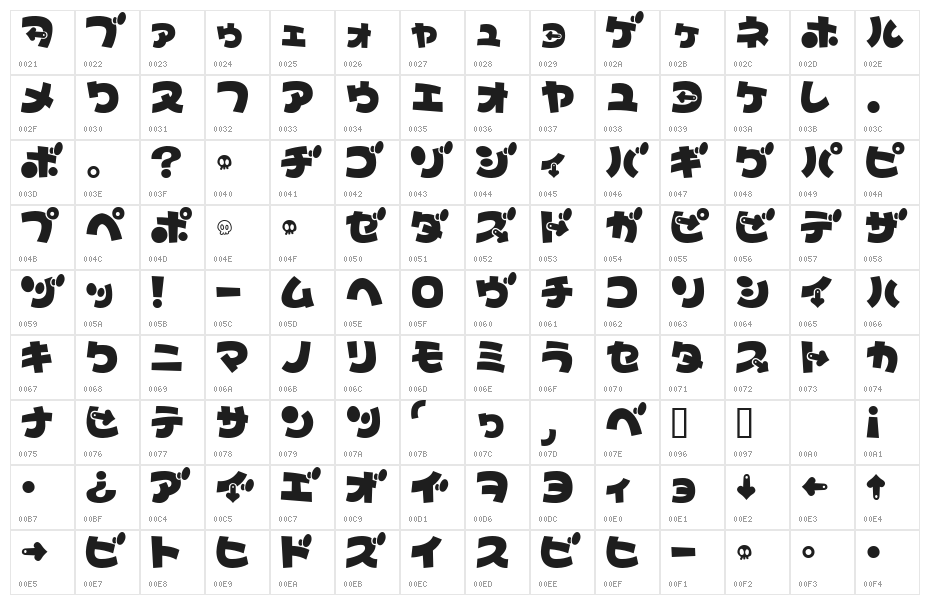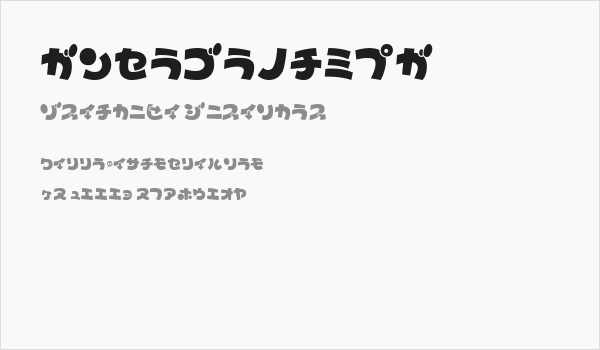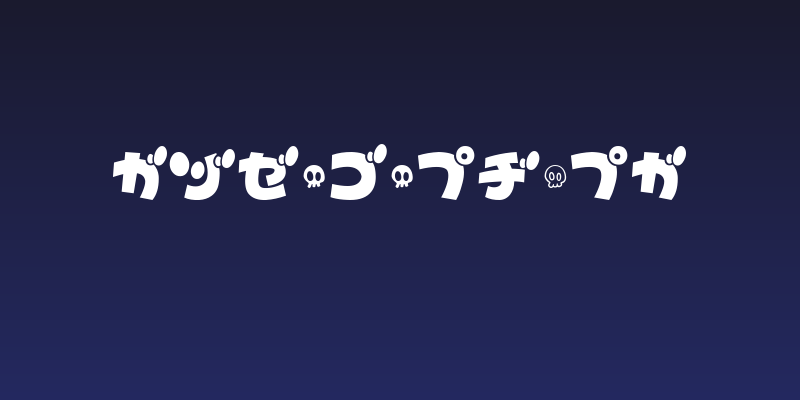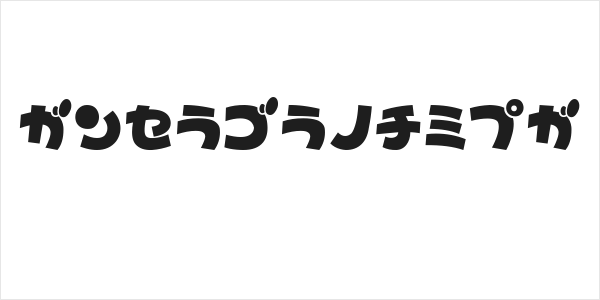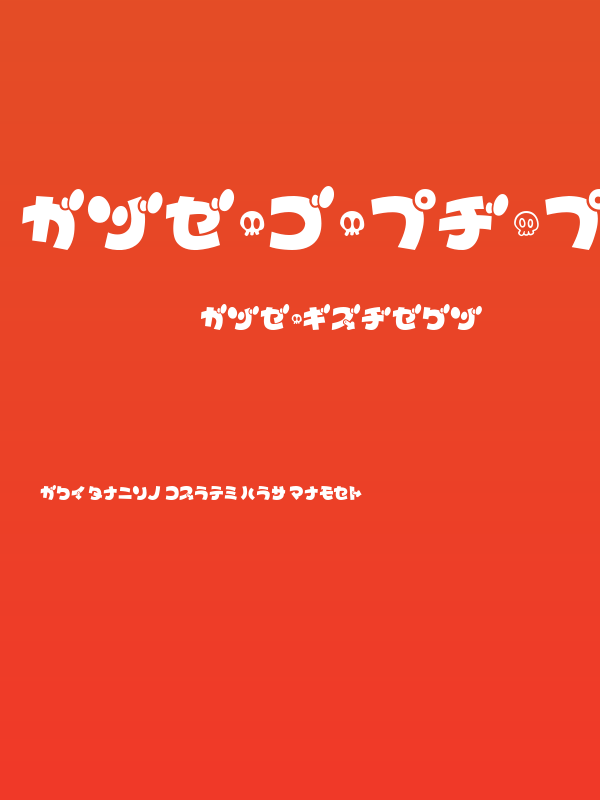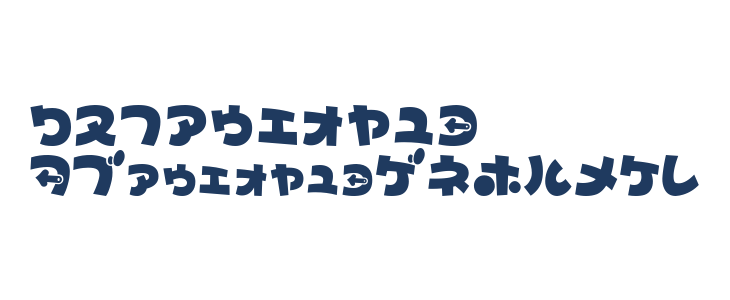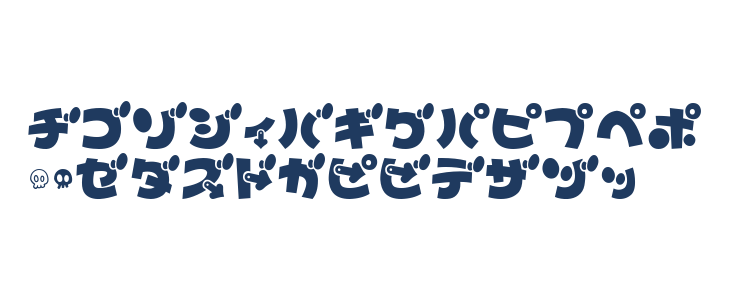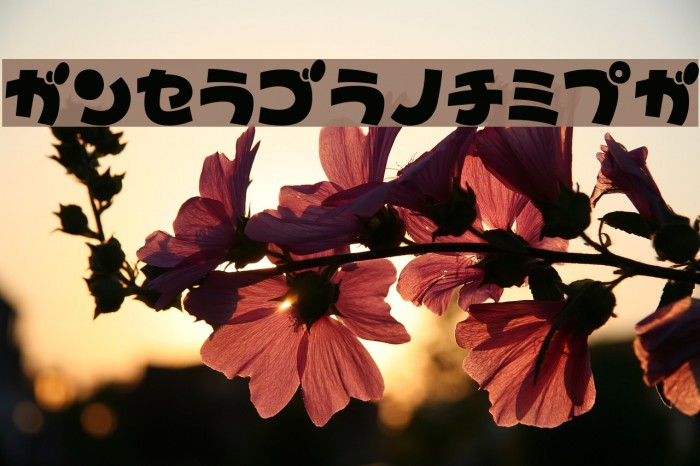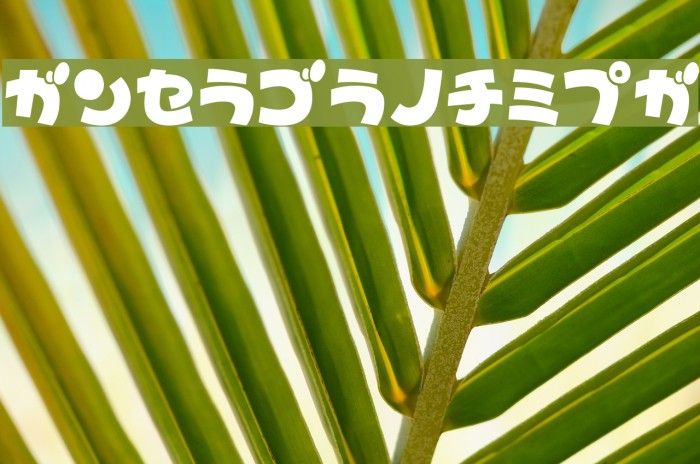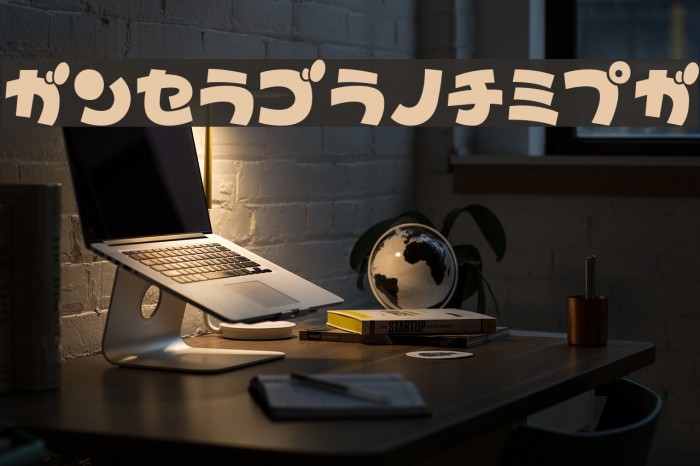
TypoBokanKT Font
TypoBokanKT Description
This font features a bold and playful design, characterized by its thick, rounded strokes and whimsical shapes. The characters are highly stylized, with exaggerated curves and a cartoonish aesthetic that gives them a lively and energetic feel. The font includes a variety of unique symbols and diacritics, adding to its quirky and distinctive appearance. Its boldness and distinctiveness make it stand out, making it suitable for projects that require a fun and engaging visual impact.
| Overall Style | Playful, Cartoonish, Energetic |